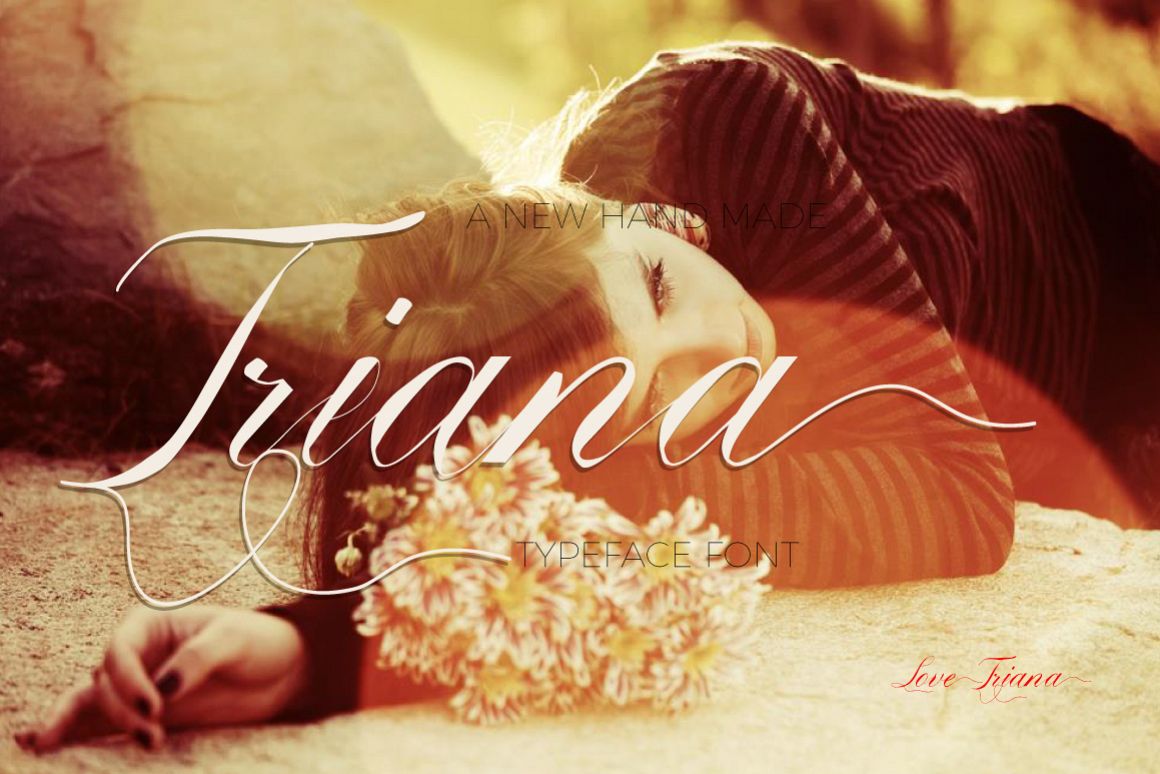
Triana Font
Triana.
Triana is a font based hand indah.Triana letter font suitable for use as the title, t-shirts, logo, correspondence, wedding invitations, letterhead, labels, newsletters, posters etc.
Triana font comes with uppercase, lowercase character, punctuation, numbers, also equipped with alternative uppercase and lowercase letters. It can also be used to program Adobe Illustrator, Adobe Photoshop, Adobe InDesign, Microsoft Word, with the support of the following languages: Albanian, Basque, Breton, Chamorro, Danish, Dutch, English, Faroese, Finnish, French, Frisian, Galician, German, Icelandic, Italian, Malagasy, Norwegian, Portuguese, Spanish, Swedish